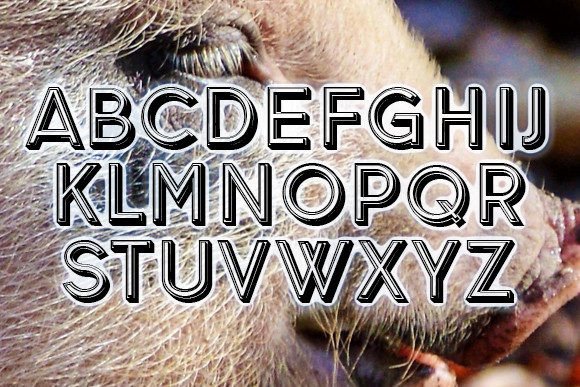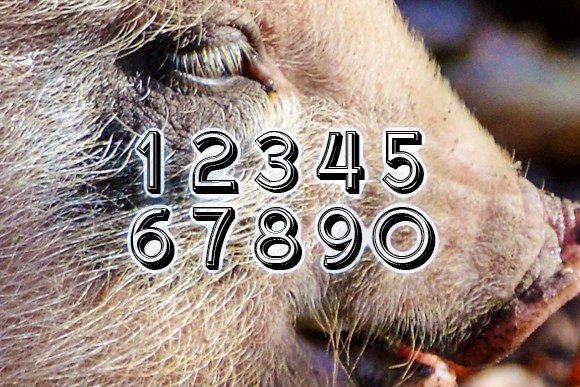
Baboy Font: Elevate Your Designs with a Stylish 3D Typeface
Are you tired of using the same old fonts in your designs? Look no further than the Baboy Font, a stylish 3D typeface that’s sure to take your creations to the next level. With its unique and eye-catching design, Baboy is perfect for adding a touch of sophistication and elegance to any project. In this article, we’ll take a closer look at the Baboy Font, its features, and how you can use it to enhance your designs.
What is Baboy Font?
Baboy Font is a modern 3D typeface that’s designed to make a statement. Its sleek and stylish design makes it perfect for a wide range of applications, from posters and flyers to postcards and more. The font features a unique 3D effect that gives it a bold and eye-catching appearance, making it sure to grab the attention of your audience.
Key Features of Baboy Font
- Stylish 3D Design: The Baboy Font features a sleek and stylish 3D design that’s sure to impress.
- Versatile: The font is perfect for a wide range of applications, from posters and flyers to postcards and more.
- High-Quality: The font is made up of high-quality letters and numbers, ensuring that your designs look professional and polished.
Posters
Create eye-catching posters with the Baboy Font. Use it as a title font or as a body font to add a touch of elegance to your design. The 3D effect of the font makes it perfect for creating posters that pop.
Flyers
Add a touch of sophistication to your flyers with the Baboy Font. Use it to highlight important information, such as dates and times, or as a header font to grab the attention of your audience.
Postcards
Make your postcards stand out with the Baboy Font. Use it as a title font or as a body font to add a touch of elegance to your design. The font’s 3D effect makes it perfect for creating postcards that look professional and polished.
There are many fonts to choose from, but the Baboy Font stands out from the rest. Here are a few reasons why:
Unique Design
The Baboy Font features a unique 3D design that’s sure to grab the attention of your audience. Its sleek and stylish appearance makes it perfect for creating designs that stand out.
Versatility
The Baboy Font is perfect for a wide range of applications, from posters and flyers to postcards and more. Its versatility makes it a great addition to any designer’s toolkit.
In conclusion, the Baboy Font is a stylish 3D typeface that’s perfect for adding a touch of elegance and sophistication to your designs. Its unique design, versatility, and ease of use make it a great choice for designers of all skill levels. Whether you’re creating posters, flyers, postcards, or more, the Baboy Font is sure to take your designs to the next level.